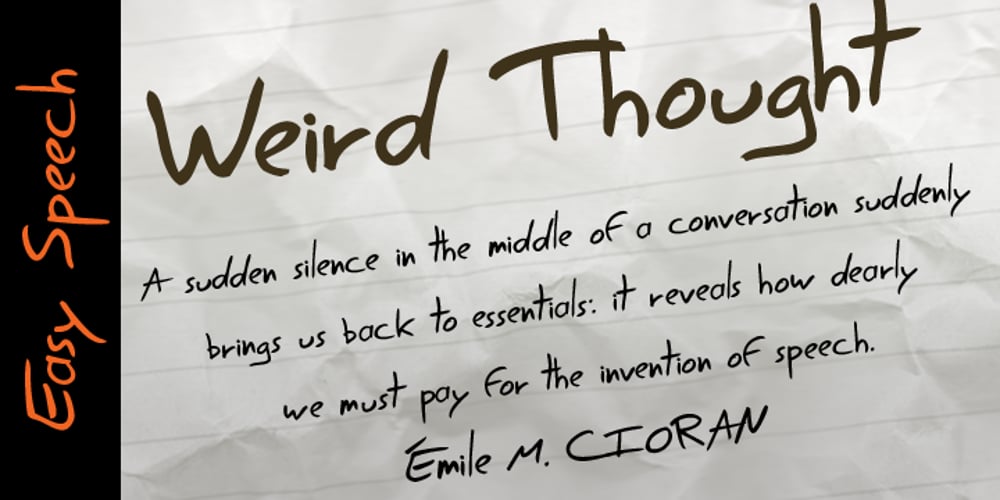
Easy Speech Font Family was designed by Jean-Jacques Morello and published by Jean-Jacques Morello. Easy Speech contains 1 styles and family package options. Easy Speech is a hand drawn font inspired by my own writing, suitable for texts made in a hurry on sticky notes, letters, postcards… Most glyphs collide to give a real badly written feeling.